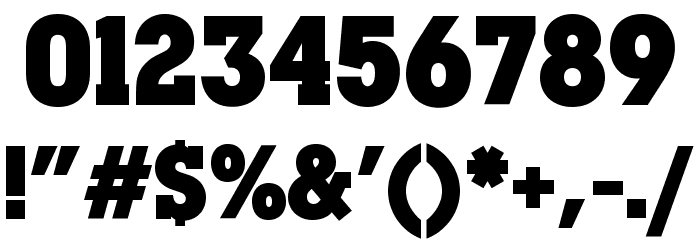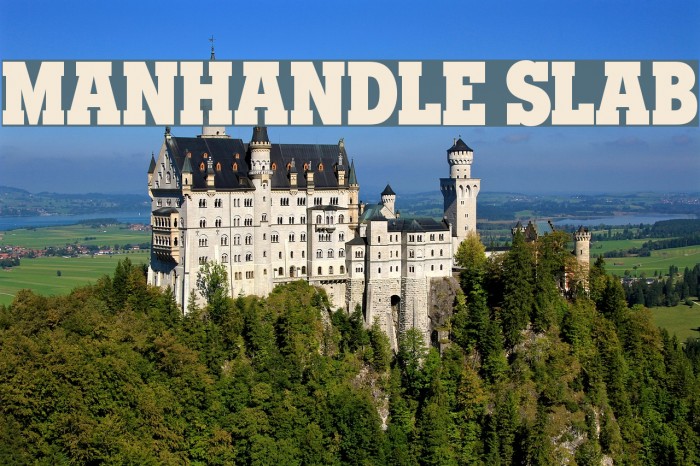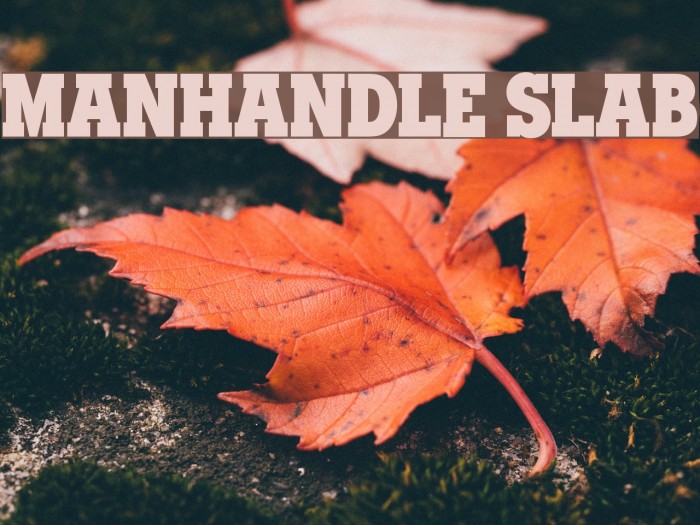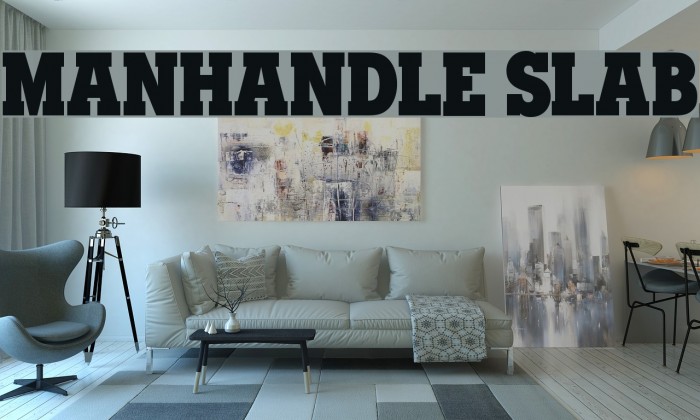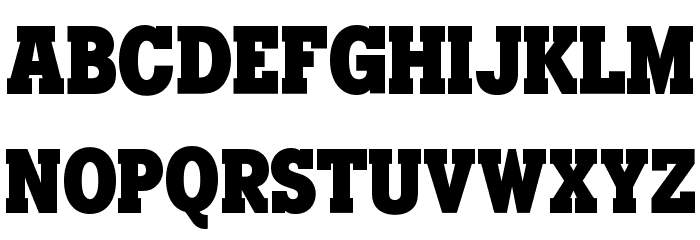
Manhandle Slab Font
Manhandle Slab Description
This font is a bold and impactful slab serif typeface characterized by its thick, block-like serifs and strong presence. The uppercase letters are robust and commanding, making them ideal for attention-grabbing headlines. The lowercase letters maintain the same boldness, ensuring consistency across different text sizes. Numbers are equally bold, providing a cohesive look when used in conjunction with letters. The special characters are designed to match the overall bold aesthetic, ensuring they don't feel out of place. This font is perfect for projects that require a strong, authoritative look.
A bold slab serif font with thick serifs and a strong, impactful presence from Uncategorized fonts.
- Proposed Projects: Ideal for headlines, posters, branding, and any design requiring a bold statement.